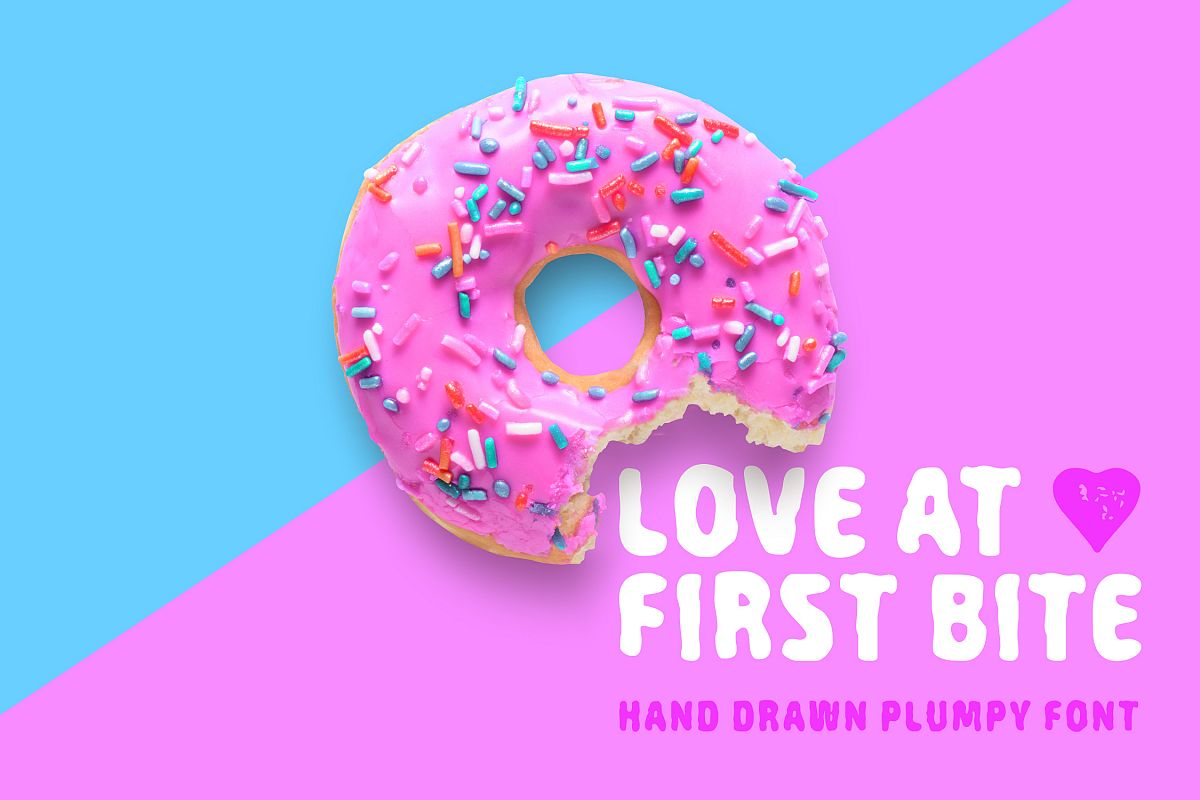
Love At First Bite. Handmade Sans Serif Font
And today I'm glad to introduce my new plumpy handcrafted sans serif font Love At First Bite. Font supports cyrillic and latin alphabet